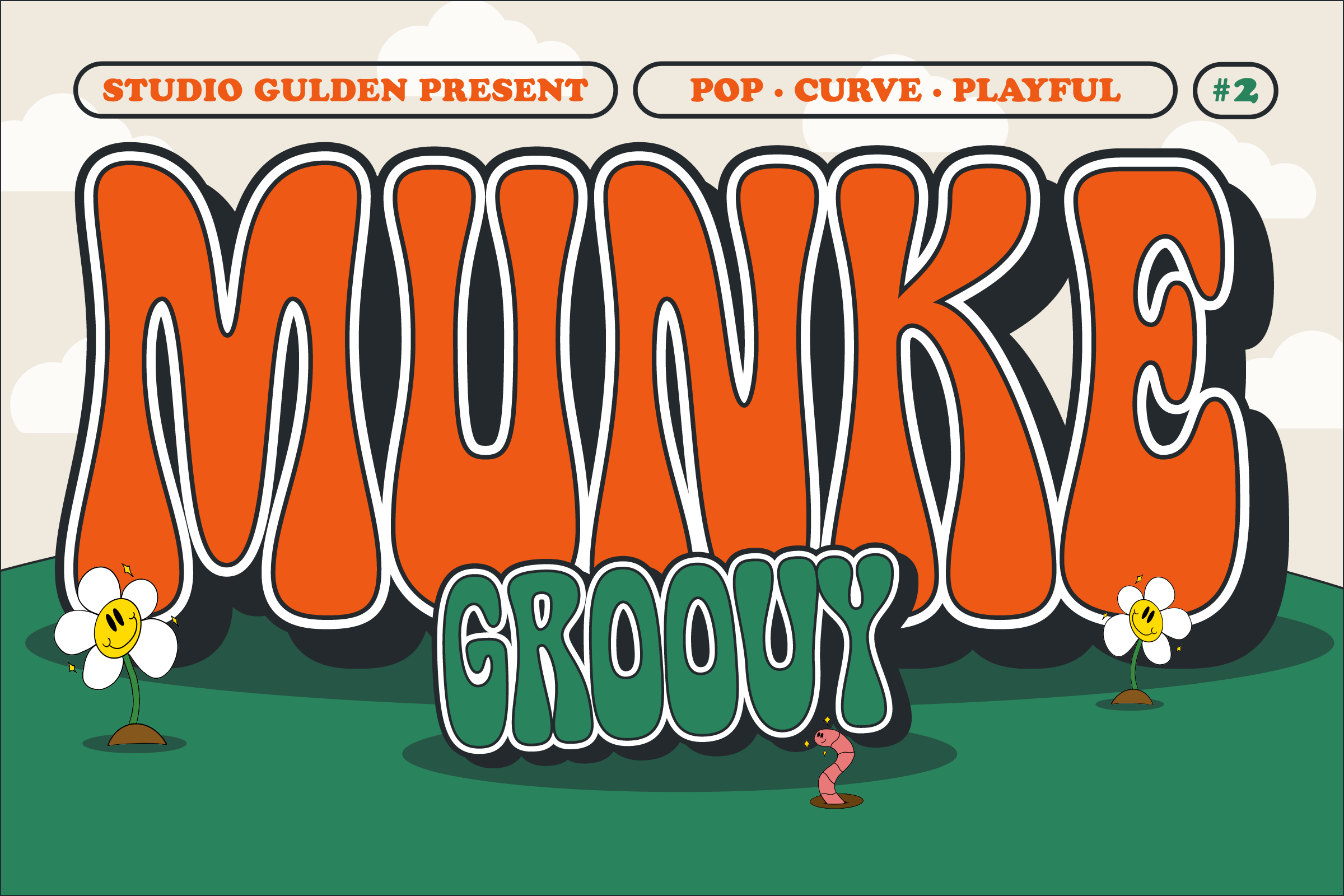
SG Munke DEMO Font
About SG Munke DEMO
Unleash the Bold Brilliance of SG ARDIO: Where Simplicity Meets Courage. With four distinct styles - mini, midi, mindi, and maxi - this display logo font is your key to striking designs, captivating posters, and unforgettable headlines. Elevate your visuals with SG ARDIO today!